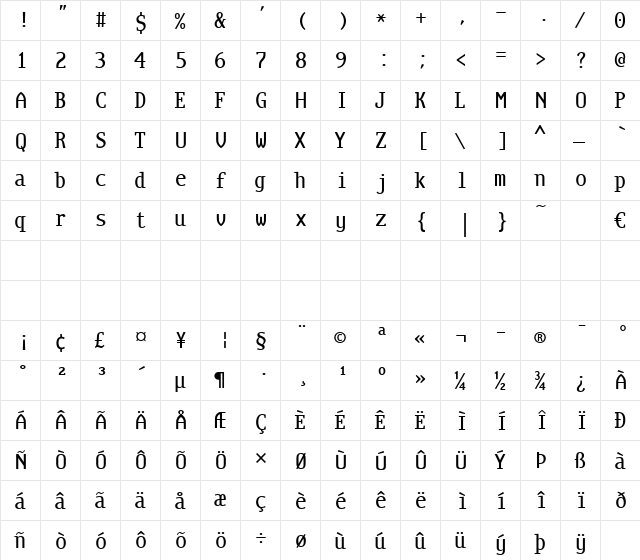
NetTerm ANSI Regular
| Designer | Tiro Typeworks |
NetTerm ANSI is a composed and adaptable typeface that performs quietly and consistently across a wide range of design contexts.